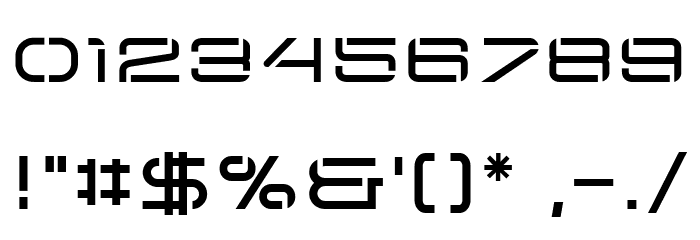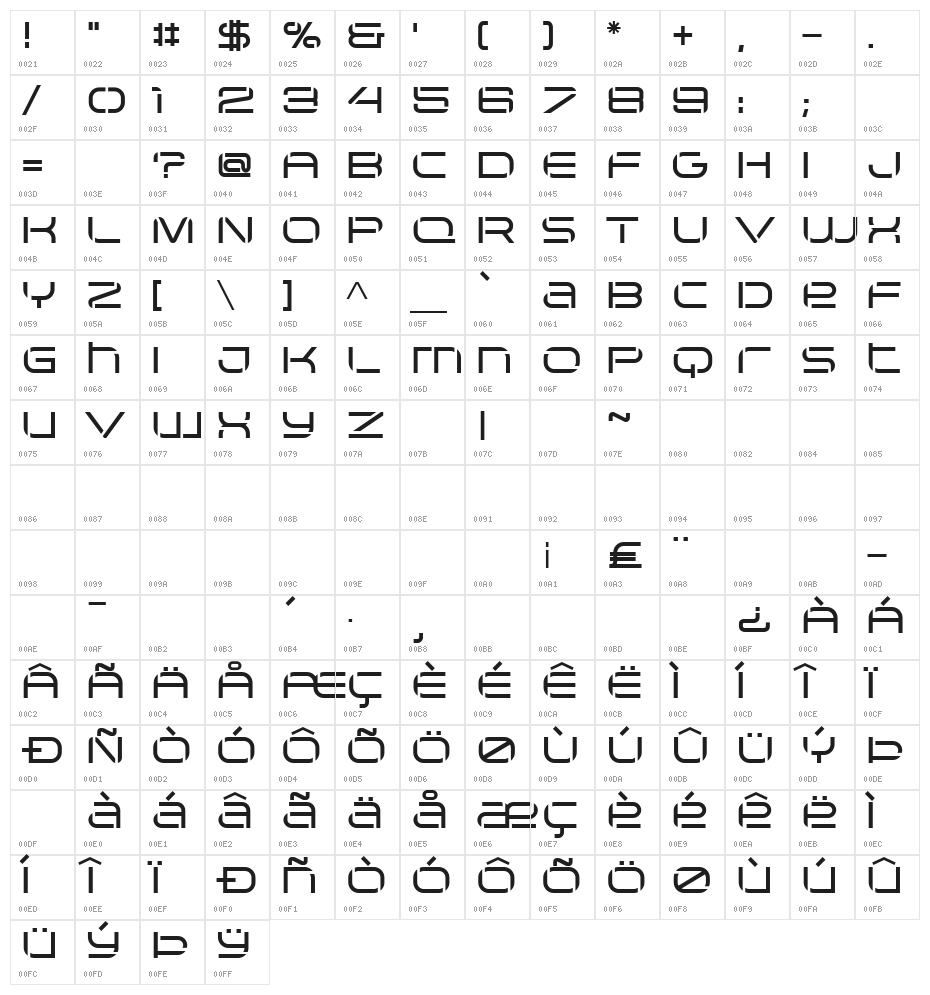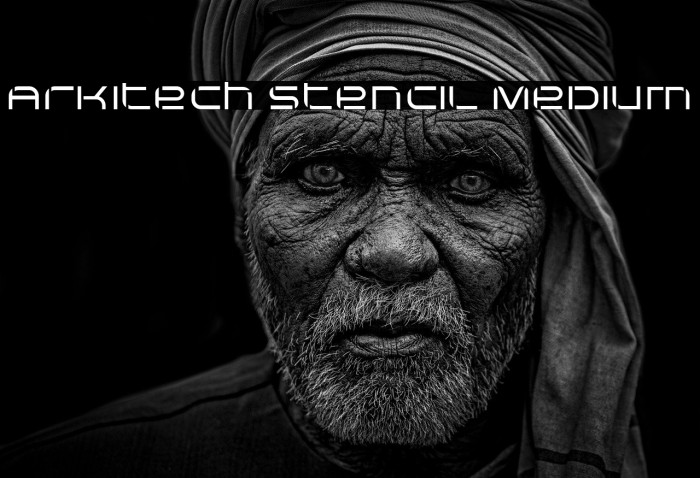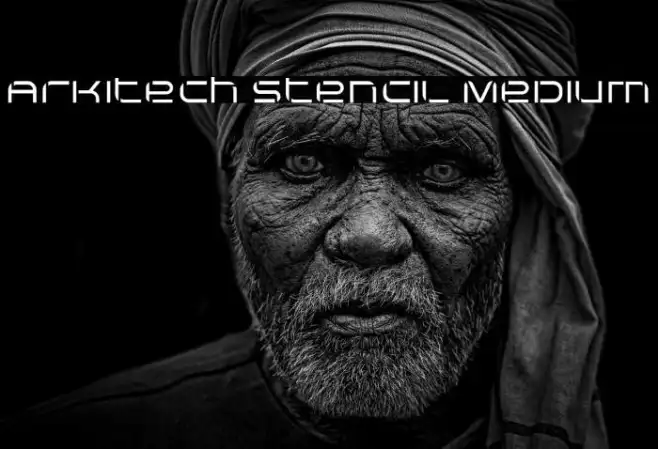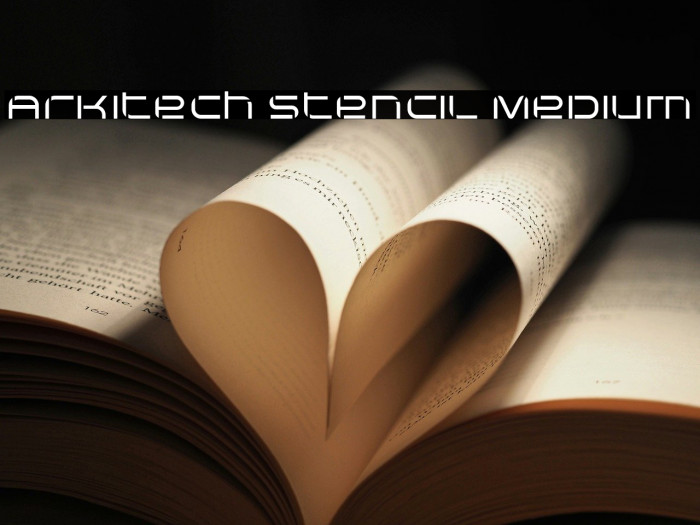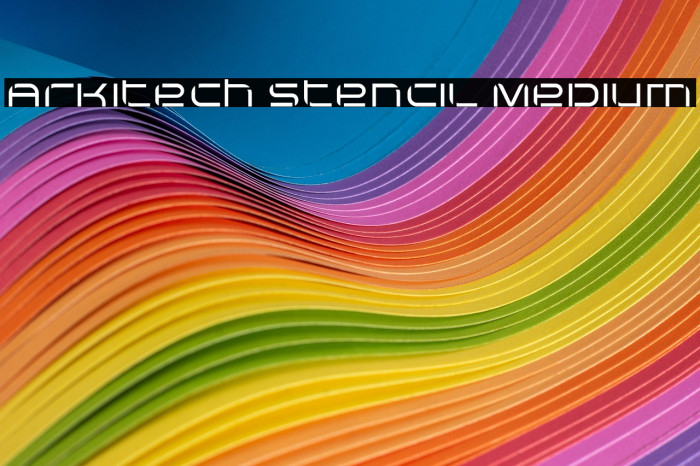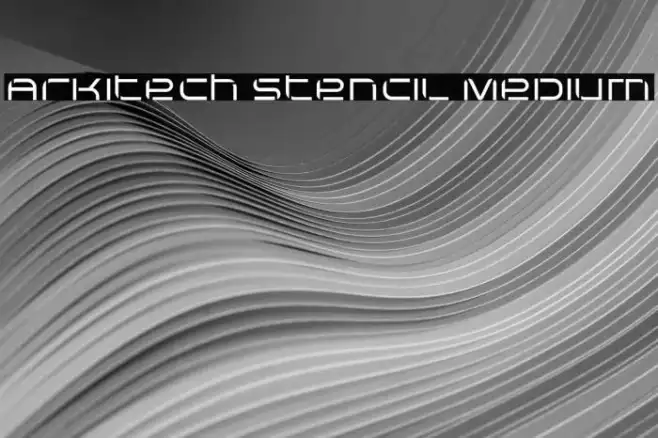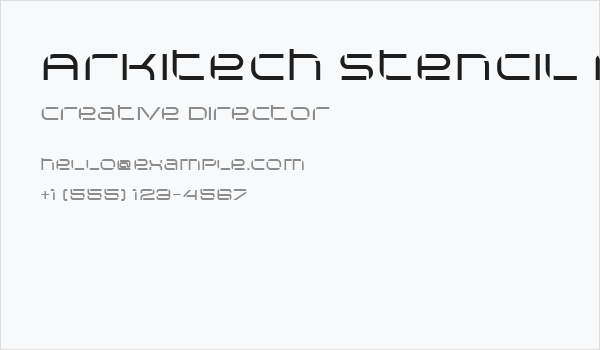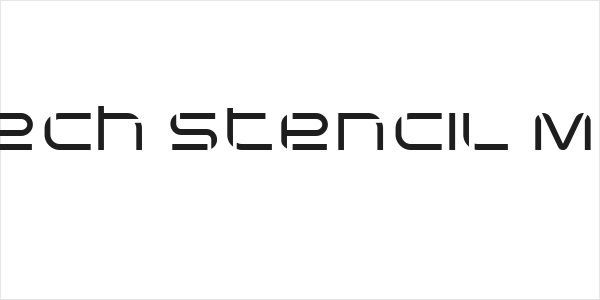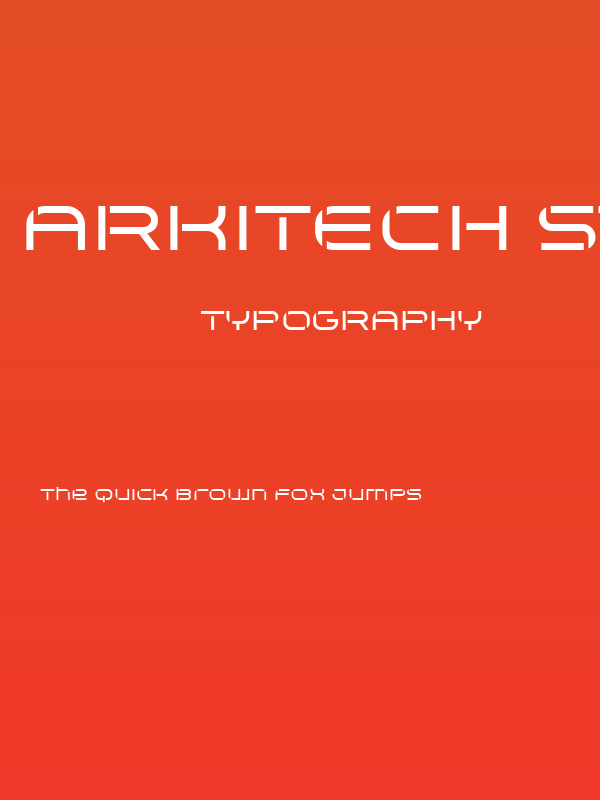
Arkitech Stencil Medium Font
Arkitech Stencil Medium Description
This font features a modern, geometric design with a stencil-like appearance. The characters are constructed with clean, precise lines and distinct cutouts, giving it a futuristic and industrial feel. The uppercase and lowercase letters maintain a consistent style, with uniform stroke widths and angular shapes. The numerals and special characters follow the same design principles, ensuring a cohesive look across all glyphs. The font's unique style makes it stand out, while its readability remains intact due to the clear separation between elements.